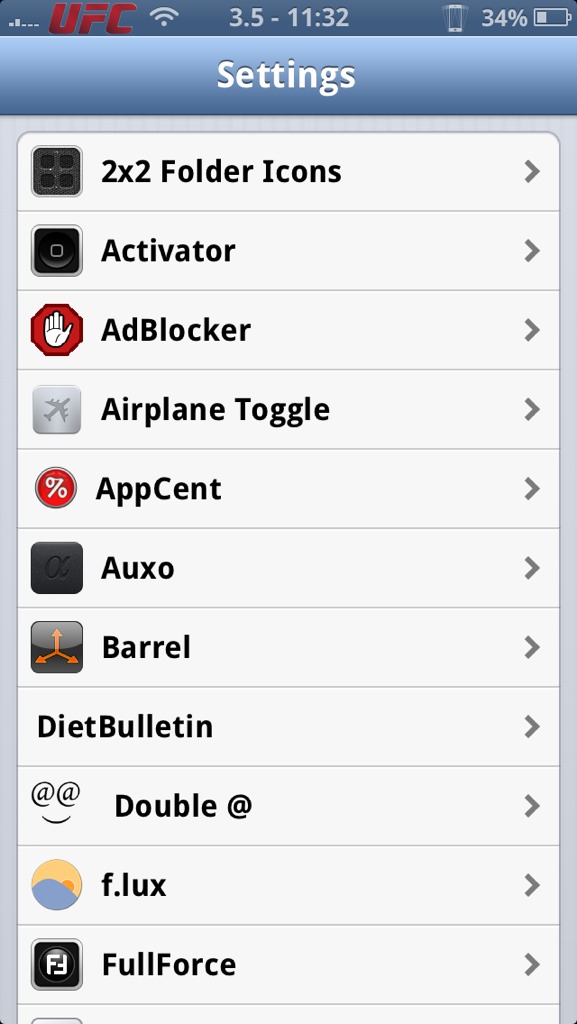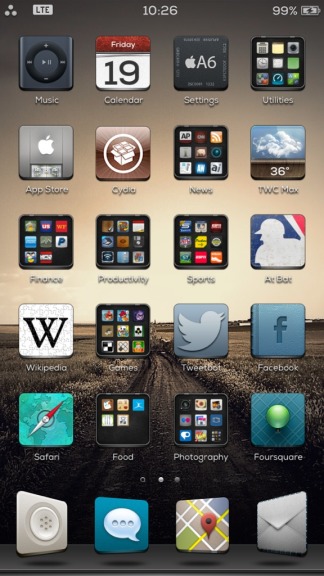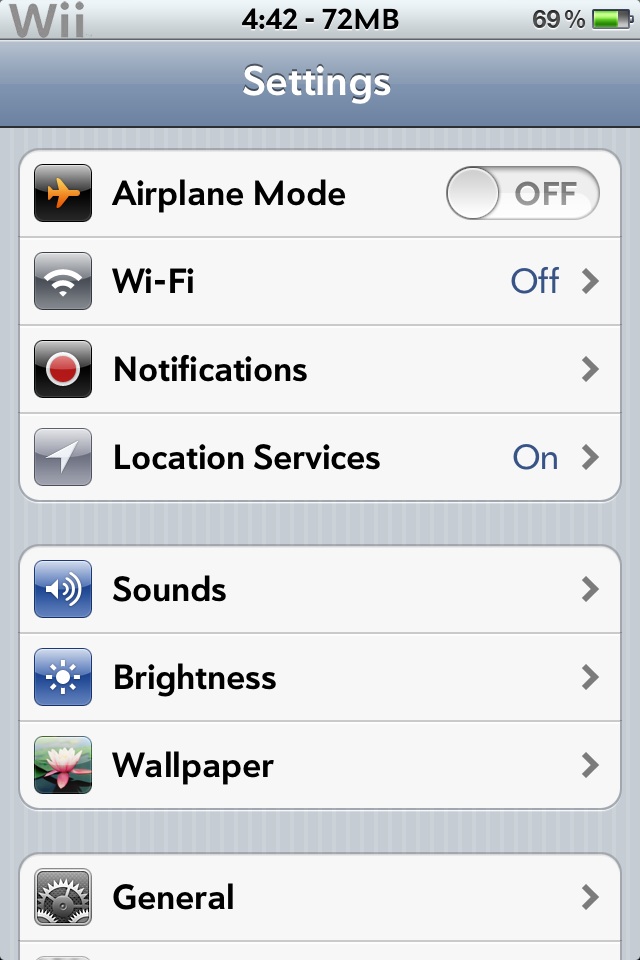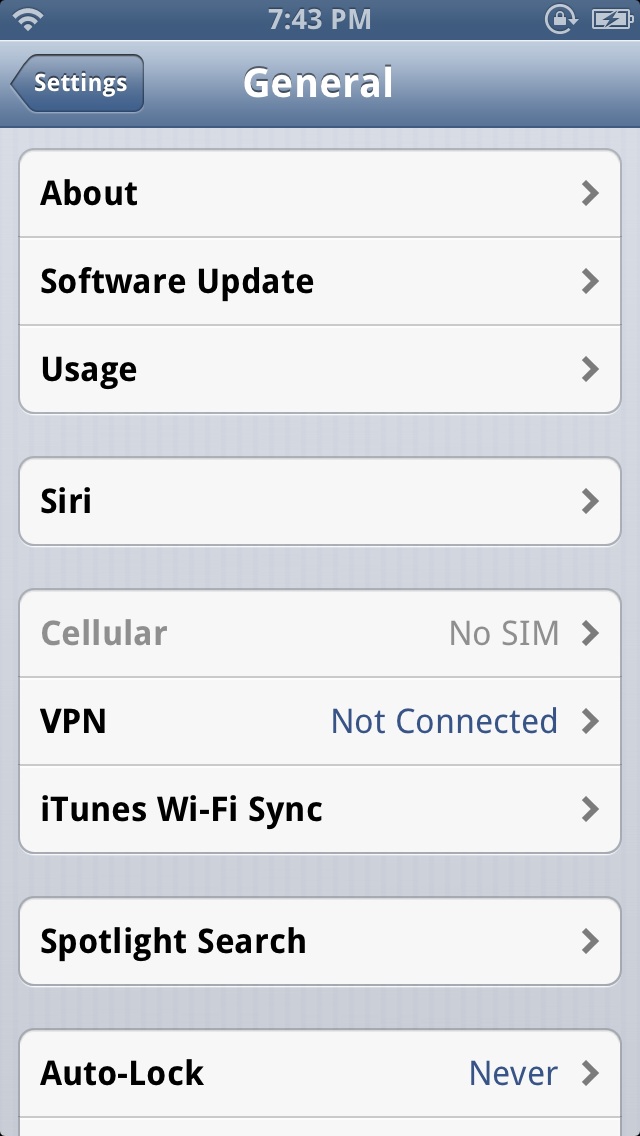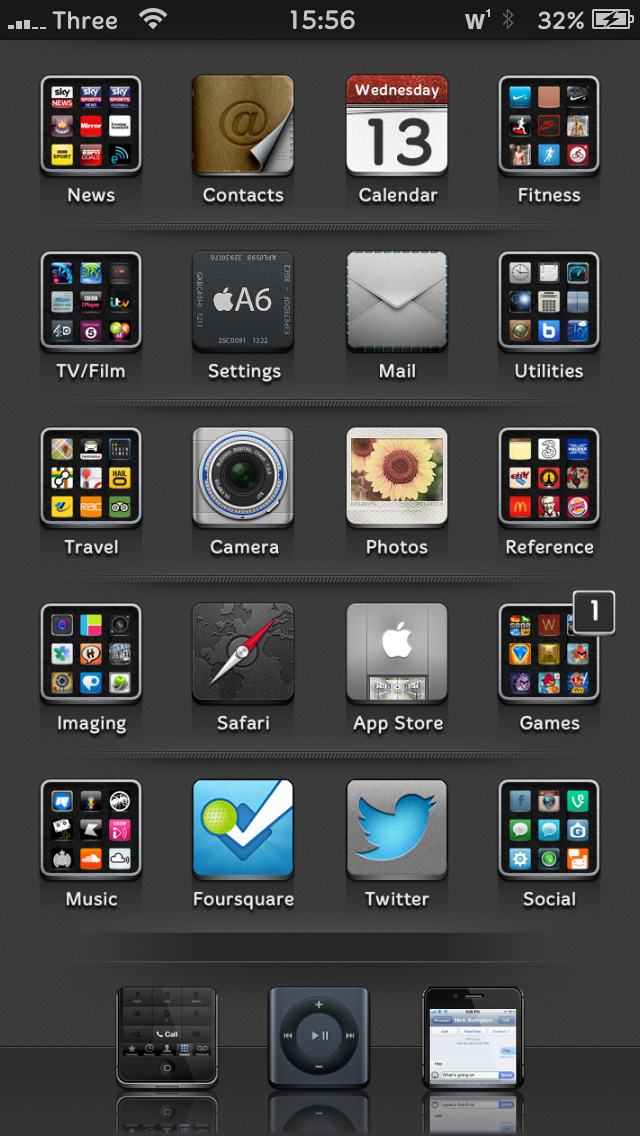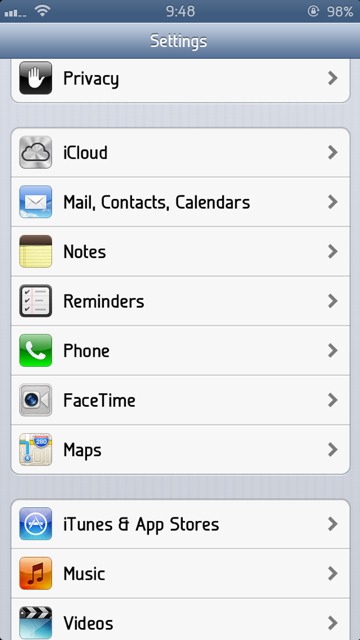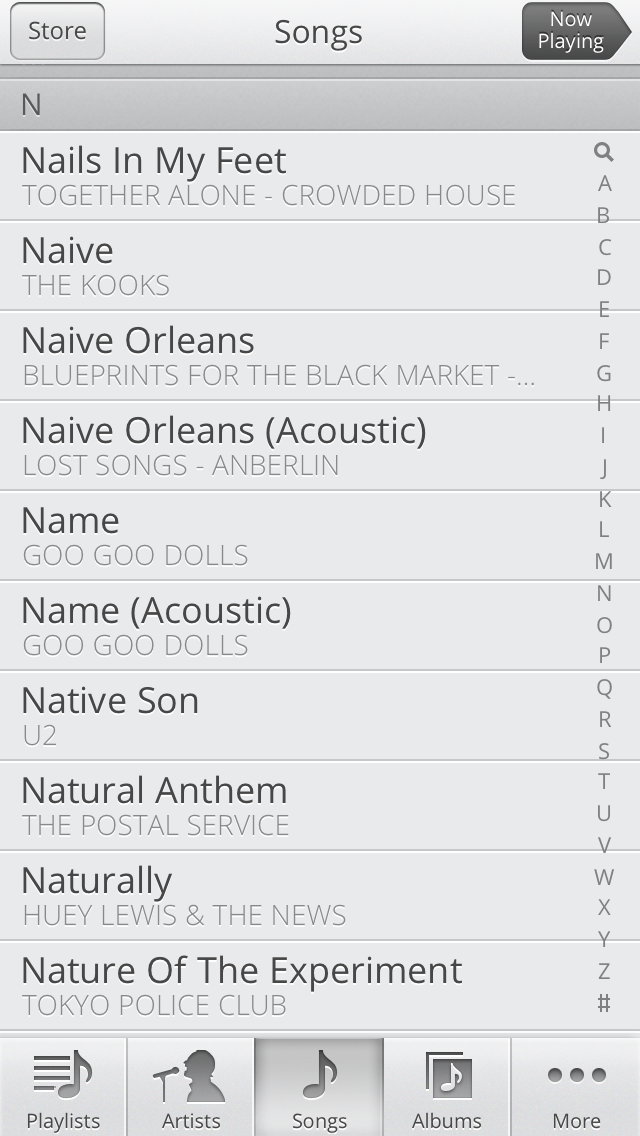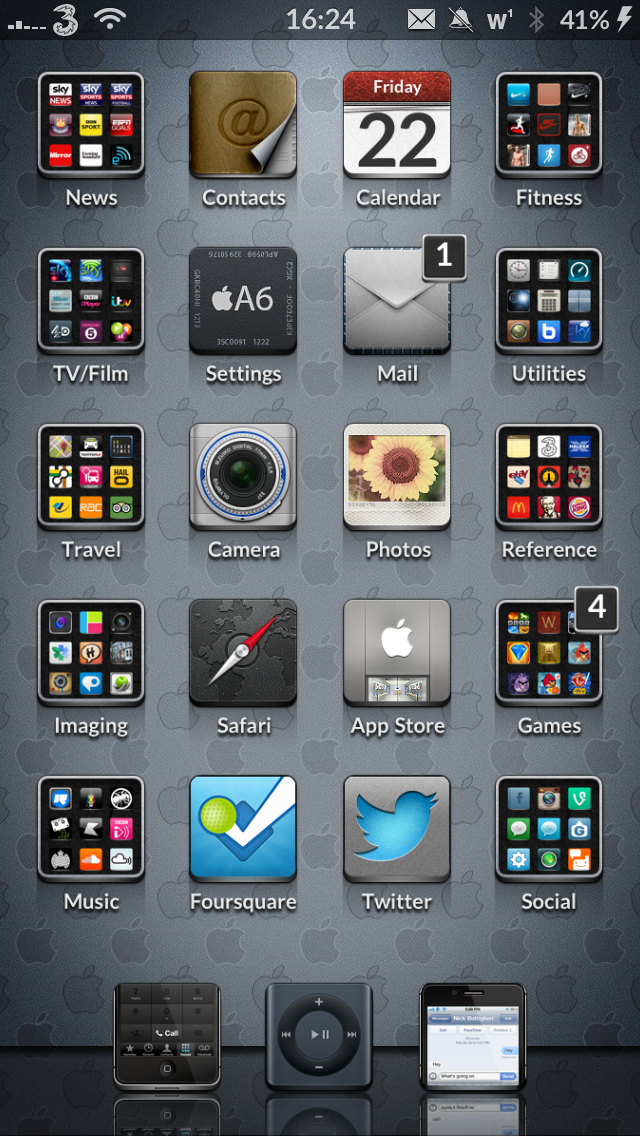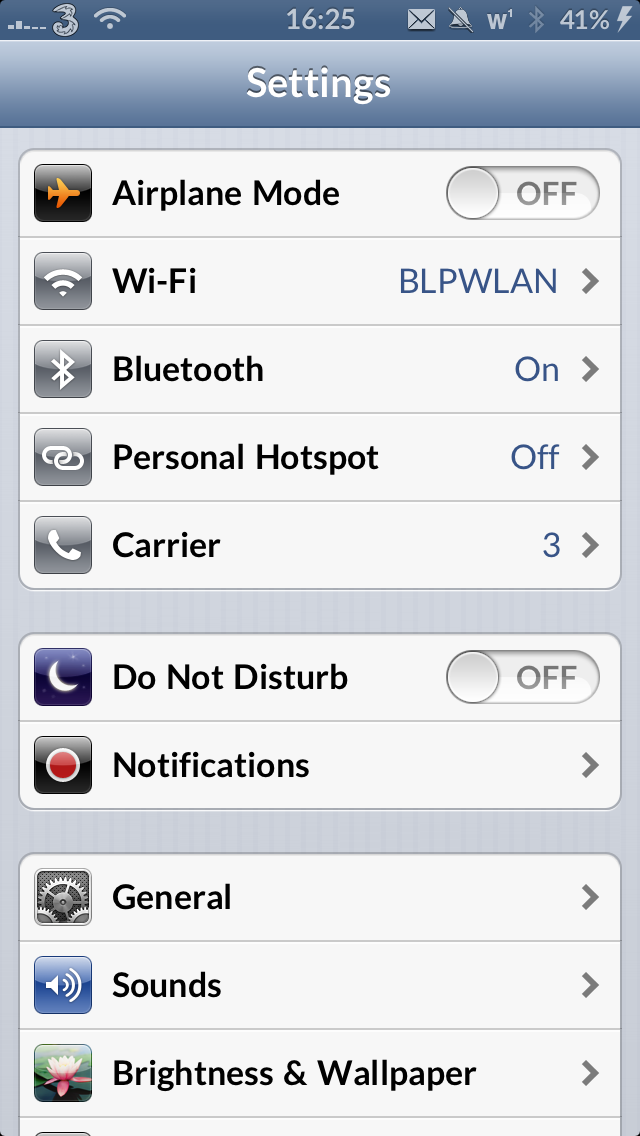
Using Avenir Regular today but a small niggle is bothering me. It doesn't change the numbers of the clock in NC or on the lockscreen when using Forecast.
Now using Merge (Not Merge Regular).
Post Your Chosen Font!
I want to see a range of different fonts available as so far I haven't managed to find one that I like and I guess this would be the best way!
So please post a picture of your chosen font type and its name :)
I'm currently using Nexa.
It's a cool font but I find it a little difficult to see the icon labels with my current background.
Does anyone know of a tweak that will make icon labels bold?